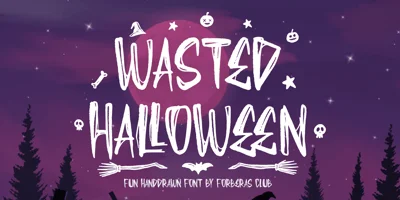
Wasted Halloween Font
Wasted Halloween Font is ideal for horror movie posters, haunted house attractions, Halloween party invitations, spooky event branding, gothic merchandise designs, zombie apocalypse games, and seasonal horror entertainment venues. This spine-chilling typeface brings authentic terror and macabre atmosphere to any design project celebrating the darkest night of the year.
What makes Wasted Halloween Font exciting is its masterful combination of decaying horror aesthetics and theatrical drama that perfectly captures the essence of Halloween terror and supernatural dread. The font features distressed letterforms with weathered textures and haunting irregularities that evoke abandoned graveyards and ancient horror tales. Its frightening character creates instant atmospheric impact while maintaining excellent readability for both promotional materials and merchandise applications.
The Wasted Halloween Font family includes regular and bold weights with complementary distressed variations and horror ornamental elements. The character set features spooky ligatures, gothic symbols, Halloween alternates, and macabre decorative accents that enhance the font's terrifying appeal. Extended character support includes horror movie symbols and supernatural icons for authentic Halloween entertainment applications.
Whether you're designing horror entertainment brands, creating Halloween marketing materials, or developing spooky seasonal content, Wasted Halloween Font provides exceptional fright factor and versatility. This terrifying typeface transforms ordinary text into bone-chilling visual experiences that thrill horror enthusiasts while establishing memorable brand recognition in competitive seasonal entertainment and horror industry marketplaces.